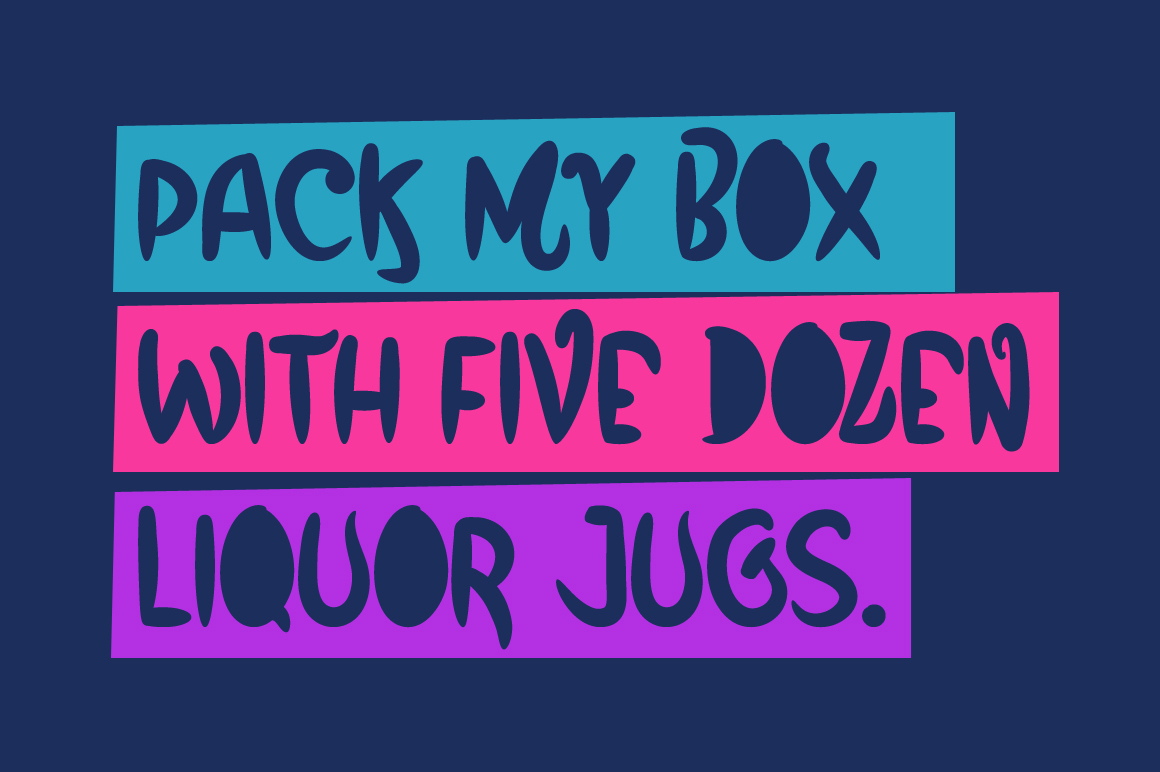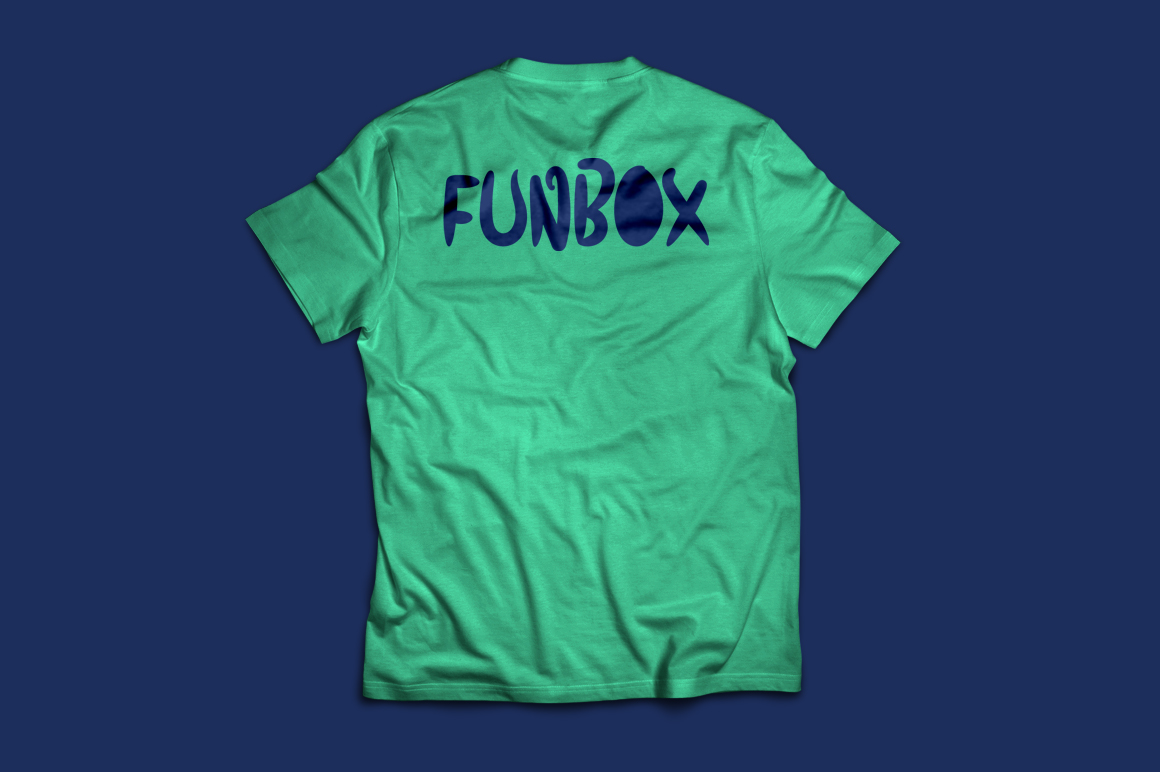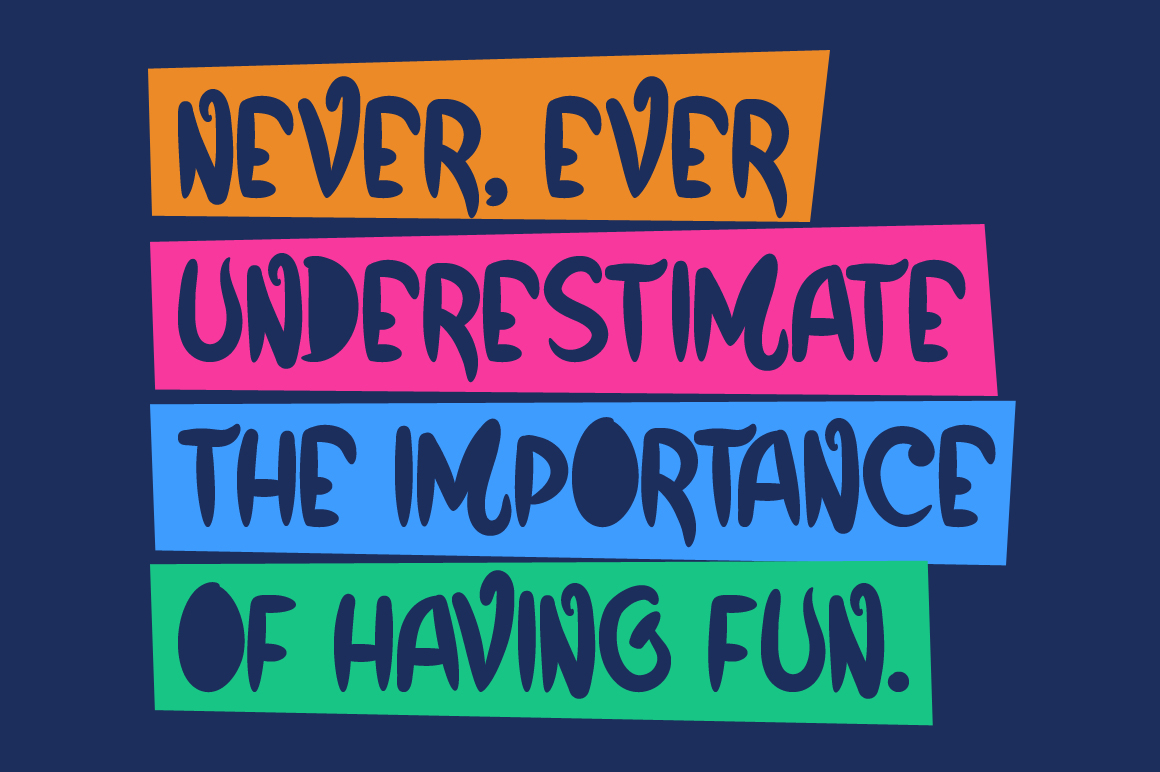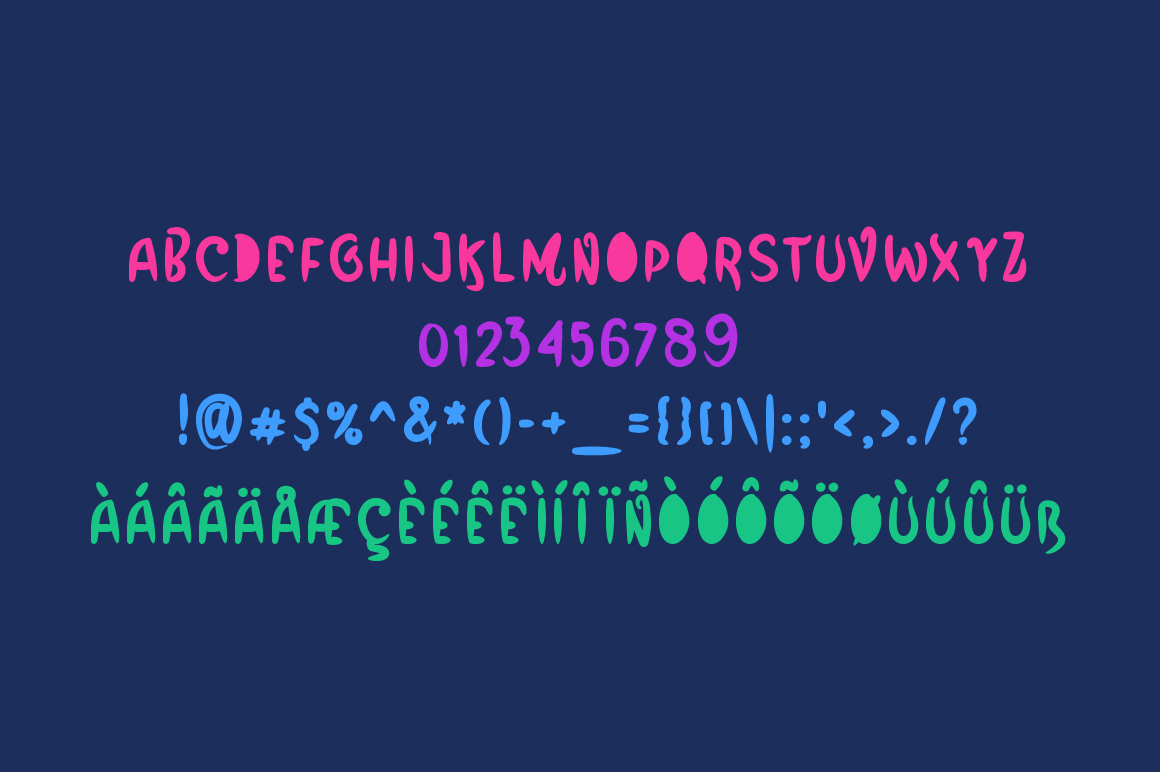
Introducing Funbox Font: The Ultimate Playful Display Font for Designers and Crafters
Are you tired of using the same old fonts for your design projects? Do you want to add a touch of playfulness and whimsy to your creations? Look no further than Funbox Font, a fun and decorative display font that’s perfect for creating playful projects. In this article, we’ll take a closer look at Funbox Font, its features, and how you can use it to take your designs to the next level.
What is Funbox Font?
Funbox Font is a unique and eye-catching display font that’s designed to add a dash of fun and personality to your designs. With its playful and carefree vibe, this font is perfect for designers and crafters who want to create projects that stand out from the crowd. Whether you’re working on a DIY craft project, a social media graphic, or a marketing campaign, Funbox Font is the perfect choice.
Key Features of Funbox Font
So, what makes Funbox Font so special? Here are some of its key features:
• Playful and whimsical design: Funbox Font has a unique and playful design that’s sure to grab attention.
• Decorative display font: This font is perfect for headlines, titles, and other display text.
• Easy to read: Despite its playful design, Funbox Font is easy to read, even at smaller sizes.
• Versatile: Funbox Font can be used for a wide range of projects, from DIY crafts to marketing campaigns.
How to Use Funbox Font in Your Designs
Now that we’ve covered the basics of Funbox Font, let’s talk about how you can use it in your designs. Here are some ideas to get you started:
• DIY crafts: Use Funbox Font to add a personal touch to your DIY craft projects, such as scrapbooking, card making, and more.
• Social media graphics: Add some personality to your social media graphics with Funbox Font.
• Marketing campaigns: Use Funbox Font to create eye-catching headlines and titles for your marketing campaigns.
• Party decorations: Create custom party decorations, such as banners and signs, with Funbox Font.
Tips for Getting the Most Out of Funbox Font
Here are some tips for getting the most out of Funbox Font:
• Use it sparingly: Funbox Font is a display font, so use it sparingly to add emphasis to your designs.
• Pair it with other fonts: Pair Funbox Font with other fonts to create a unique and interesting contrast.
• Experiment with colors: Have fun with different colors and textures to add depth and interest to your designs.
Font Name Funbox Font
Author Contour Fonts
In conclusion, Funbox Font is a fun and decorative display font that’s perfect for designers and crafters who want to add a touch of playfulness to their projects. With its unique and eye-catching design, Funbox Font is sure to grab attention and add personality to your designs. Whether you’re working on a DIY craft project or a marketing campaign, Funbox Font is the perfect choice. So why not give it a try and see what fun and creative projects you can come up with?